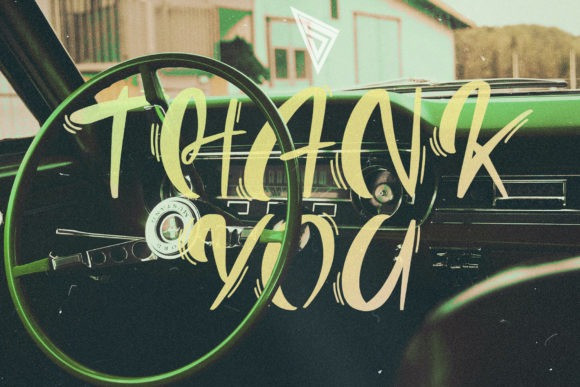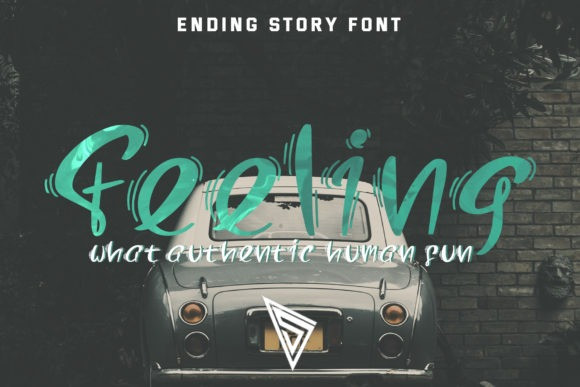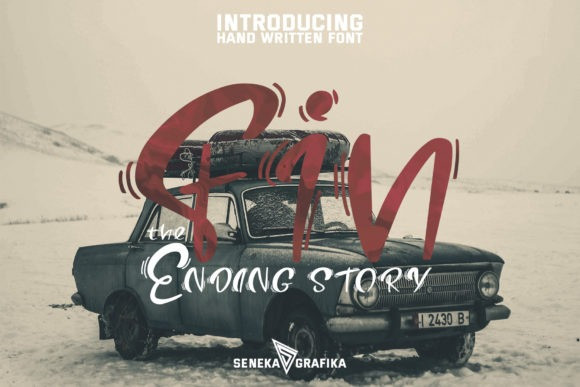
Ending Story Font
Ending Story Font is a cool, casual and urban styled handwritten font. It will look stunning on any poster, flyer or print.
Use this font for your designs and explore its endless possibilities.